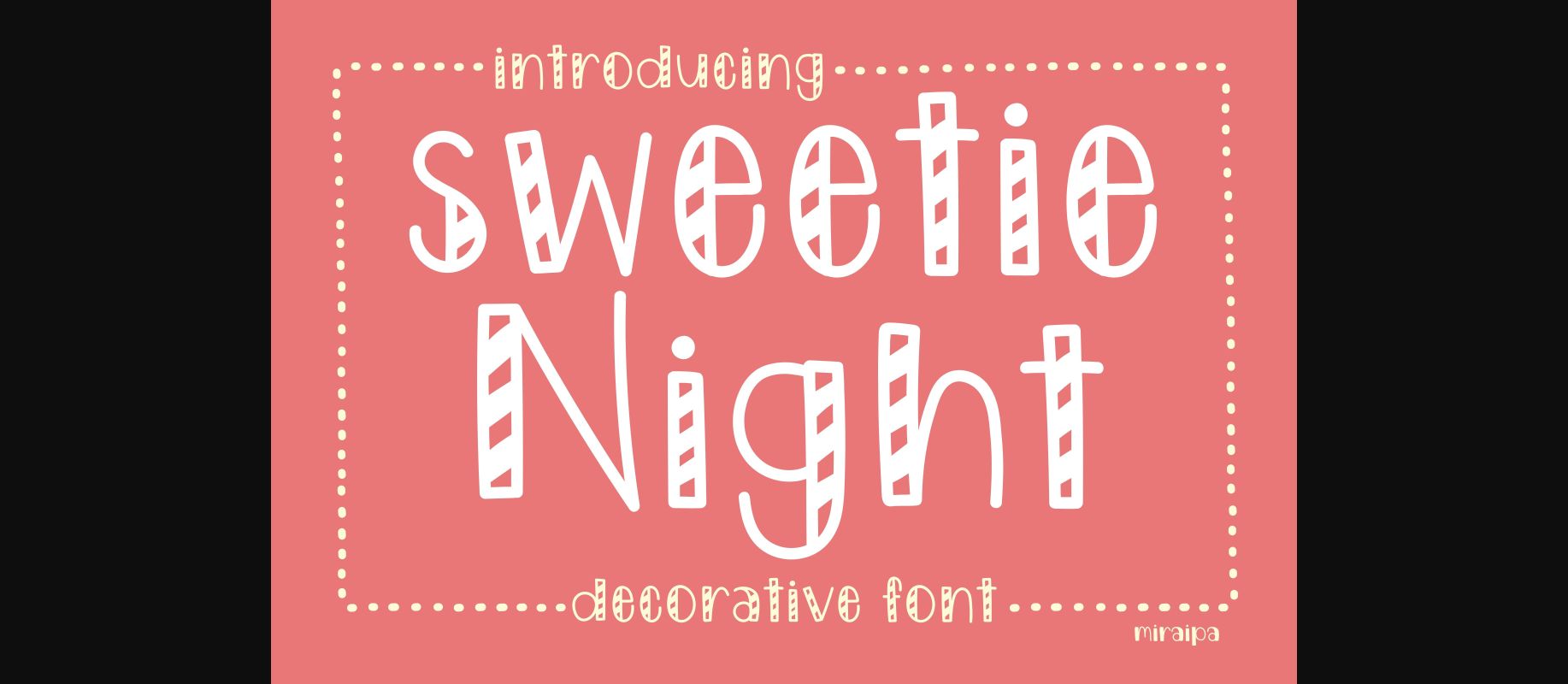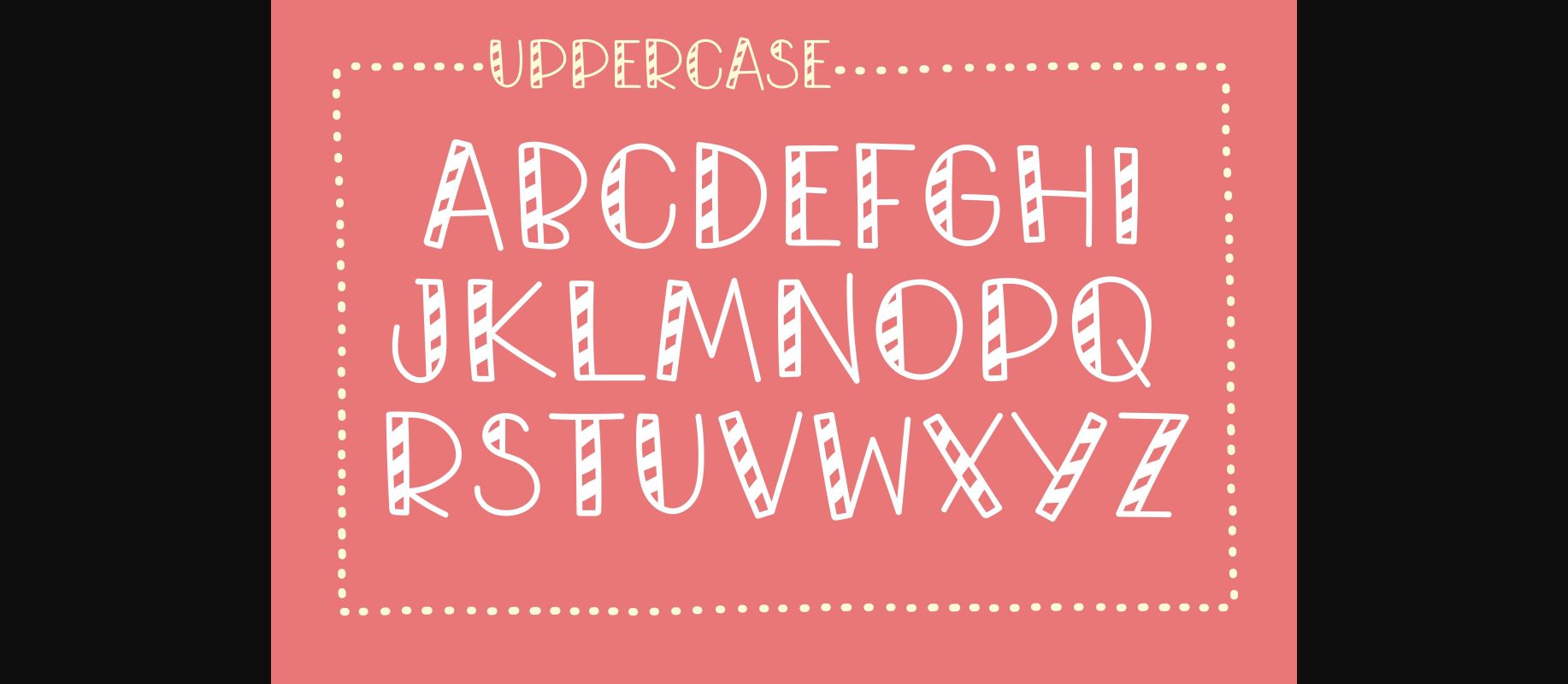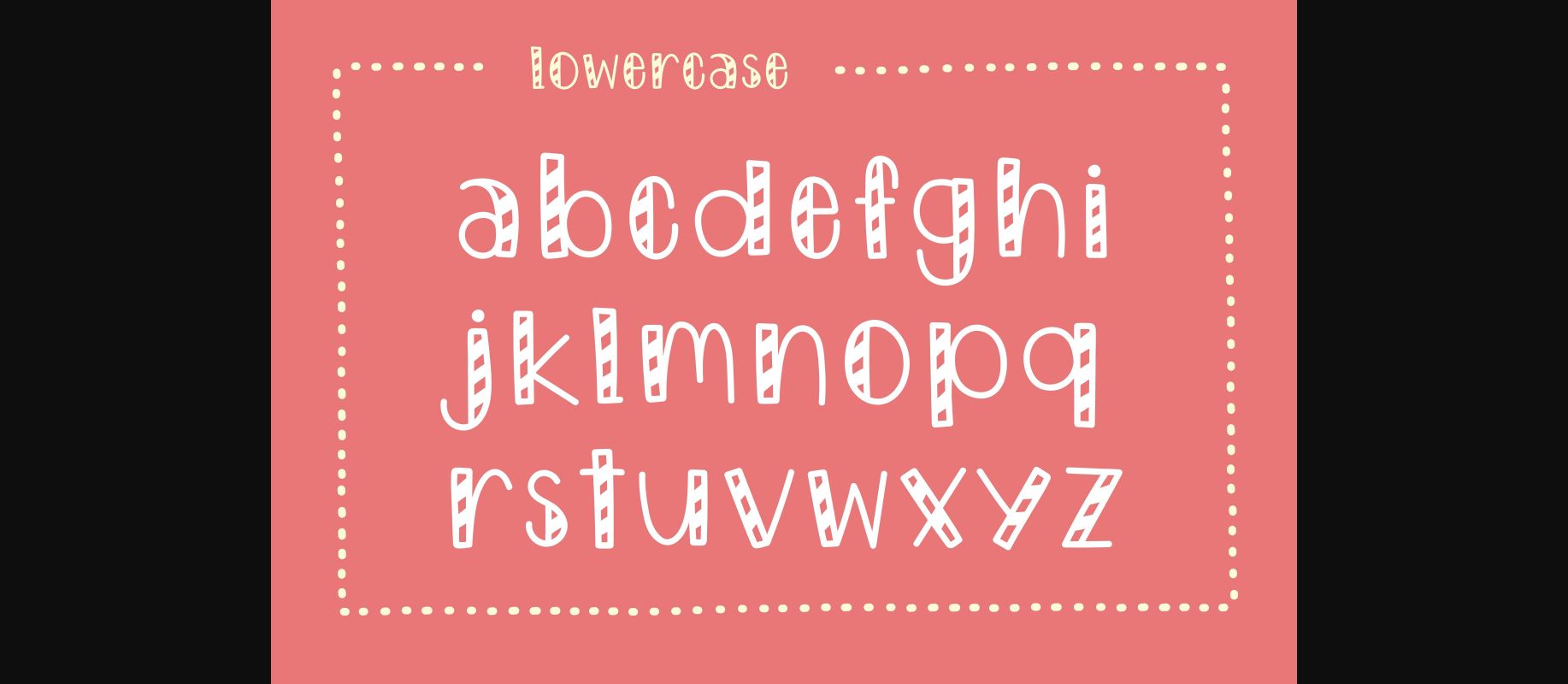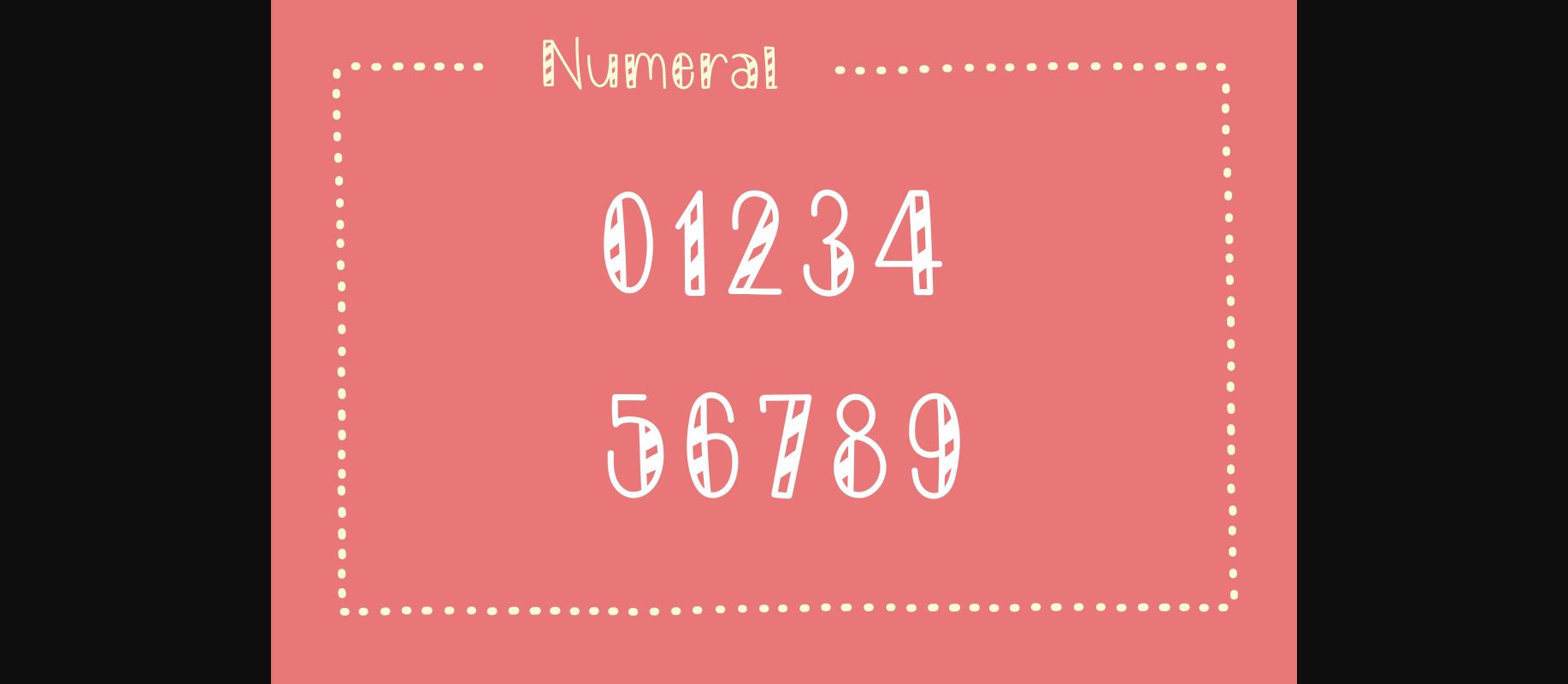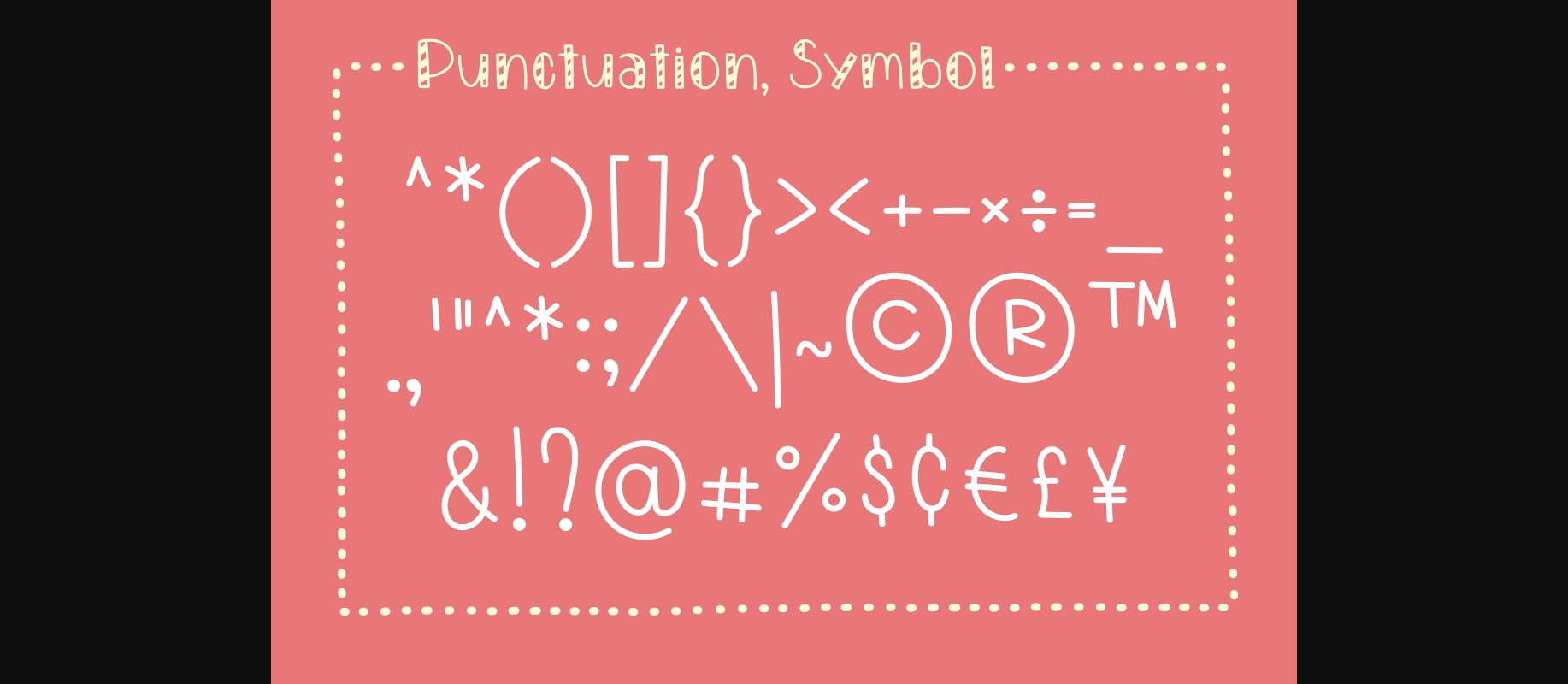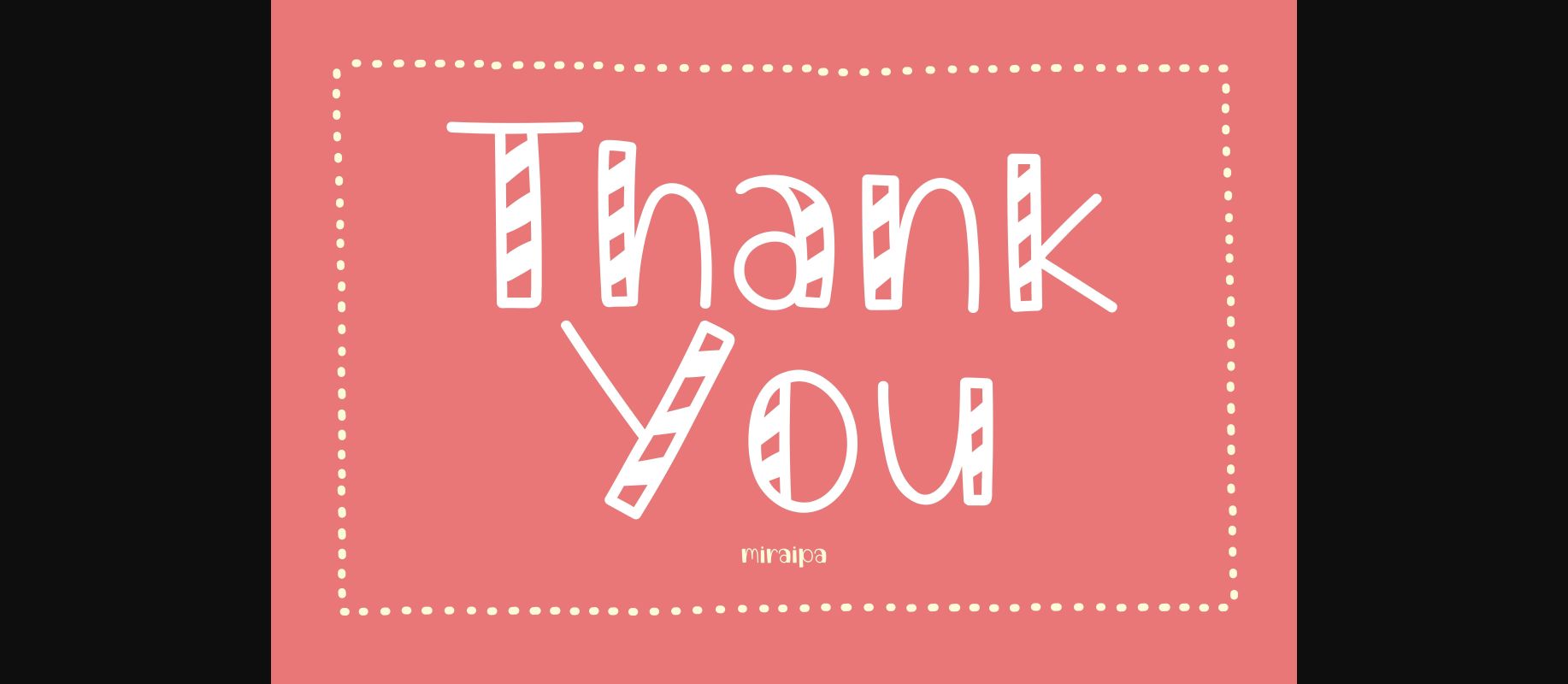
Sweetie Night Font
About Sweetie Night Font
Sweetie Night is a lovely and cute decorative font. Masterfully designed to become a true favorite, this font has the potential to bring each of your creative ideas to the highest level!